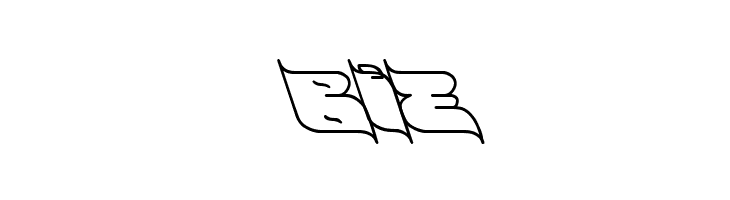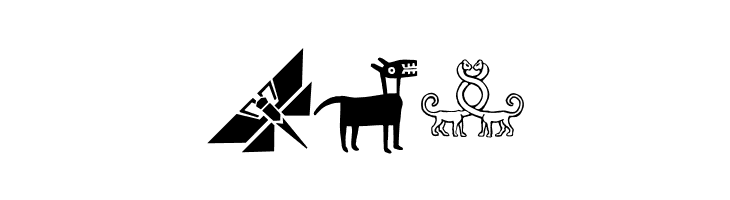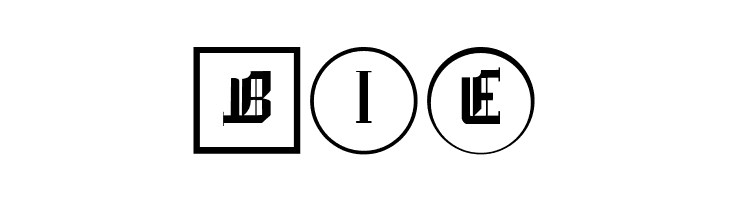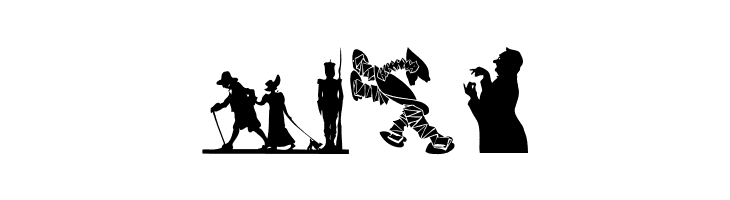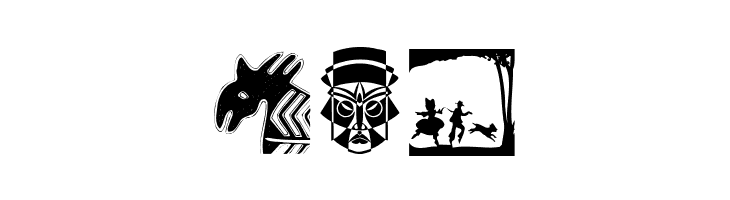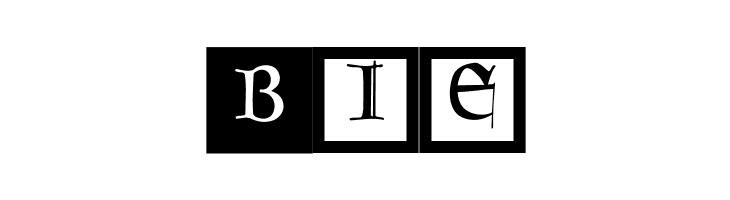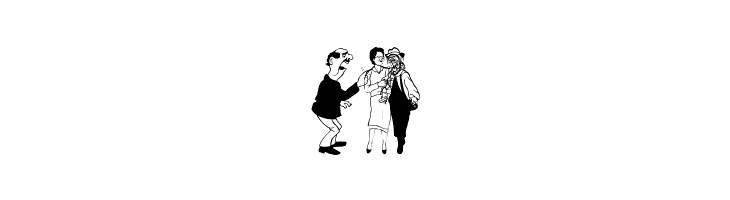
• GotikaButtonsTwo
A bold, Gothic-inspired decorative font with unique encased letters.
• Goudament
A classic yet modern serif font with elegant and whimsical elements.
• GoudamentBricks
A decorative font with artistic flair and structured design.
• Gputeks Bold
A modern, geometric font with clean lines and a structured, professional appearance.
• graffiti funky throw up by spust
A bold, graffiti-inspired font with dynamic, angular lines and a street art vibe.
• GrafFittyPunk
An edgy, punk-inspired font with sharp angles and whimsical embellishments.
• GrandfathersDesigns
Whimsical pictorial font with vintage silhouette illustrations.
• GrandfathersDesignsTwo
Whimsical pictorial font with silhouette illustrations for each character.
• GrandParents
Cartoonish, character-based font with grandparent and child illustrations.
• GraphicAnimals
A pictorial font featuring diverse animal and insect illustrations as glyphs.